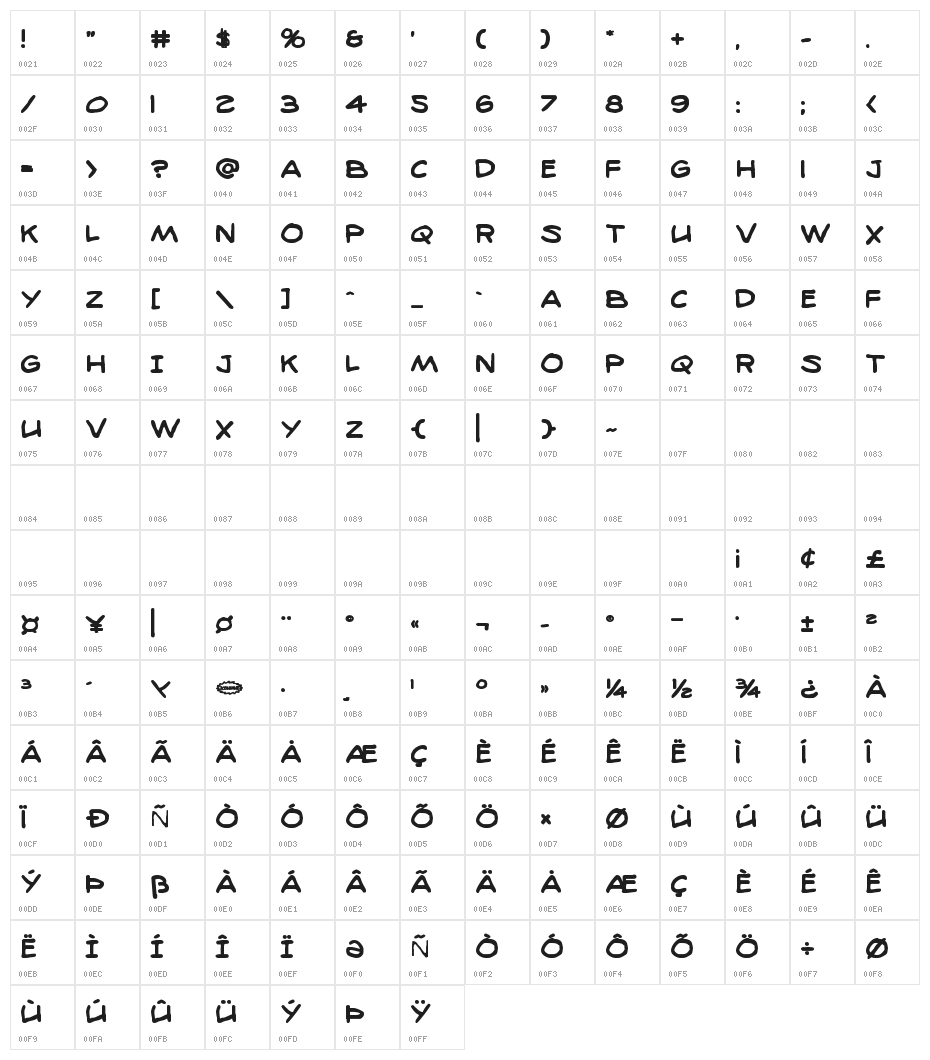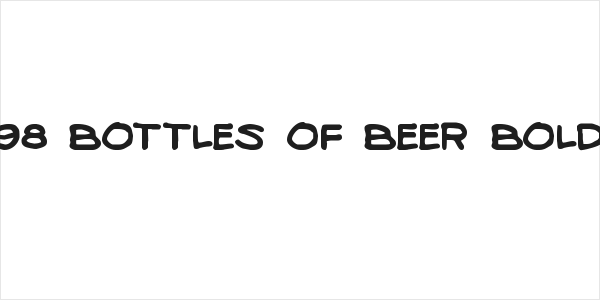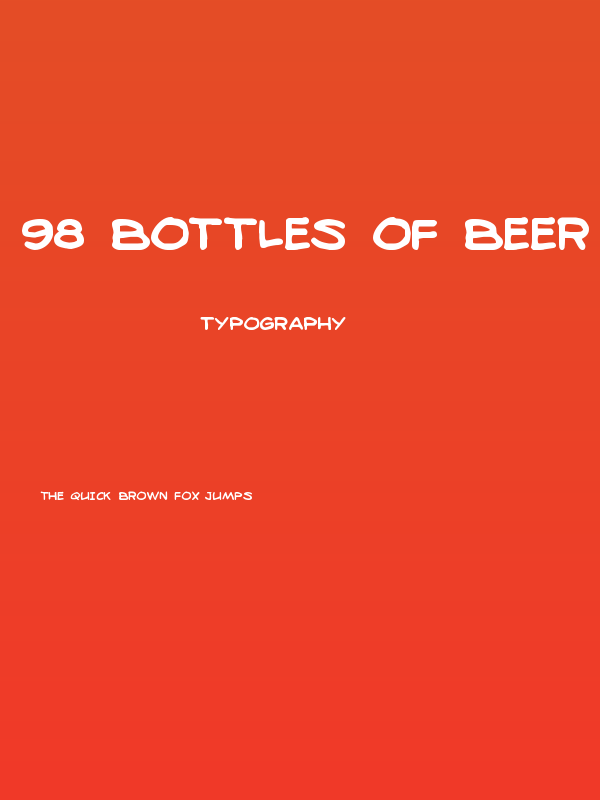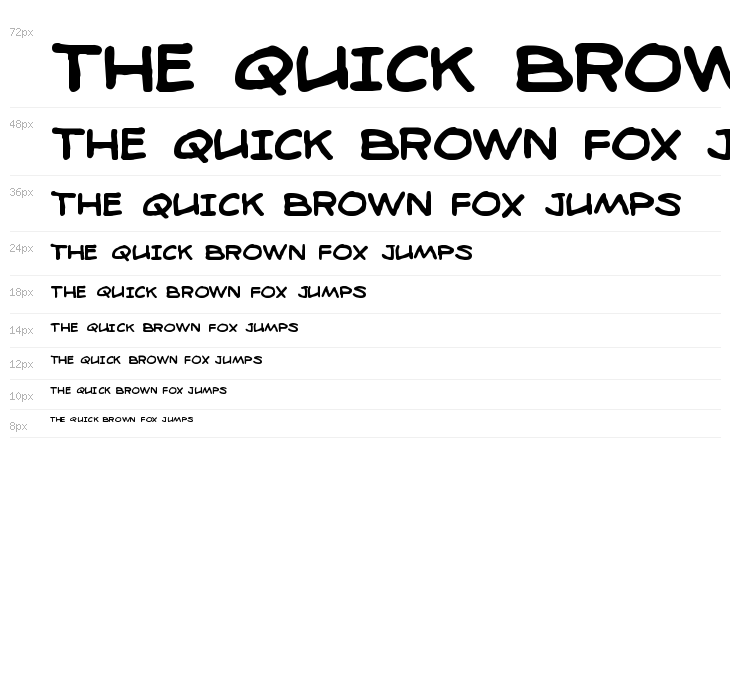
98 Bottles of Beer Bold Font
98 Bottles of Beer Bold Description
This font features a bold, playful style with a hand-drawn appearance. The characters are rounded and slightly irregular, giving it a casual and friendly look. The uppercase and lowercase letters maintain a consistent style, with a uniform thickness throughout. The numbers and special characters follow the same design principles, ensuring a cohesive appearance across all glyphs. The font's unique style makes it stand out, while its readability remains intact. This font is ideal for projects that require a fun and informal touch, such as children's books, posters, or creative branding.
| Overall Style | Playful, Casual |
| Proposed Projects | Children's books, posters, creative branding, informal invitations. |